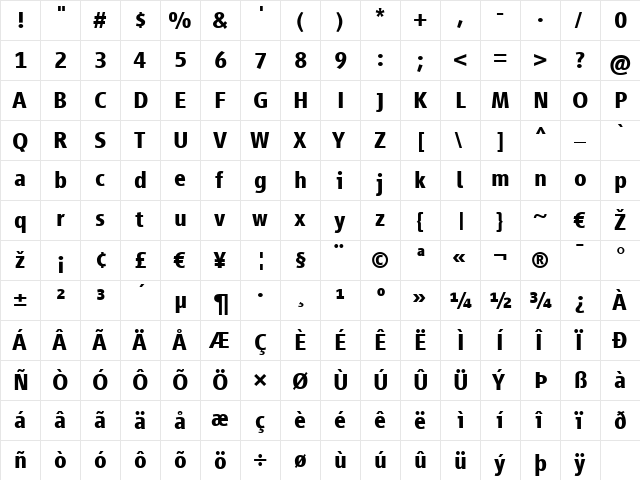
Vialog LT Bold Regular
| Designer | Werner Schneider |
Design Context for Vialog LT Bold Typeface
Vialog LT Bold takes a measured approach to typography — its balanced proportions and neutral character make it a reliable workhorse for both digital and print work. The heavy weight commands attention and anchors typographic hierarchies.